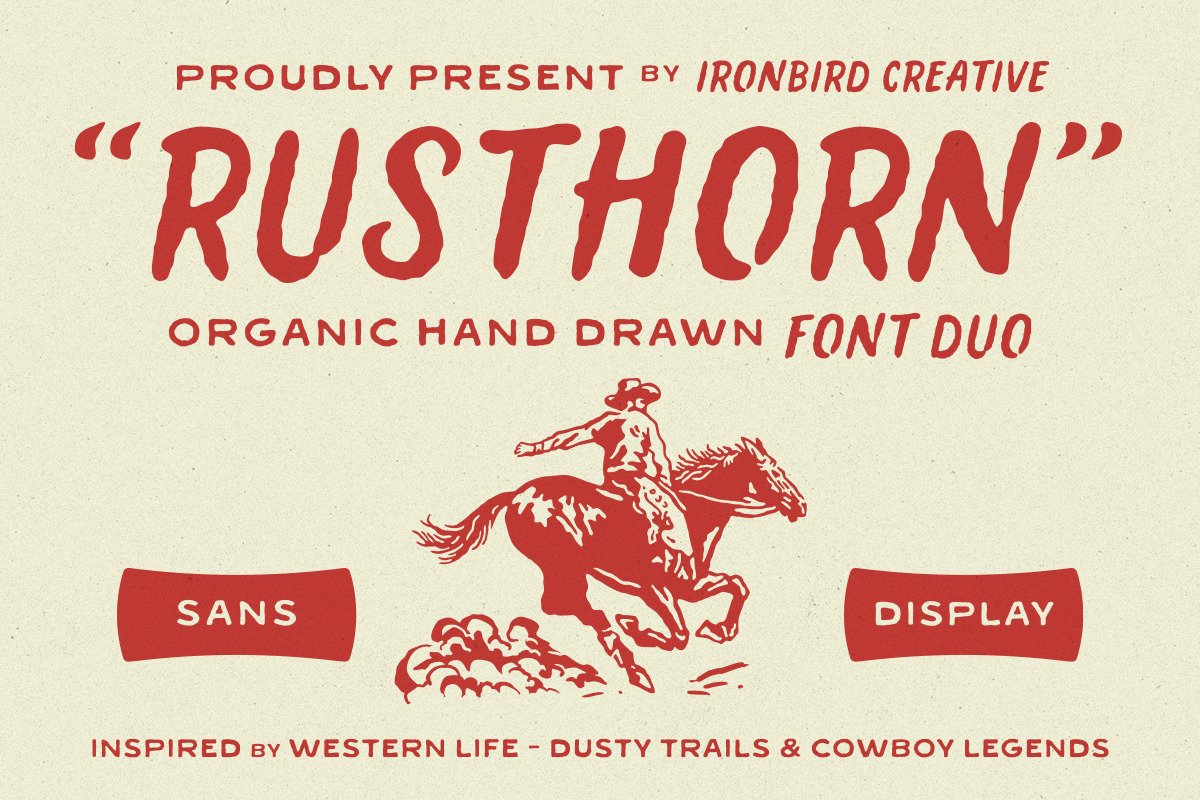
Rusthorn - Font Duo
Rusthorn is a bold and organic hand-drawn font duo inspired by western life, vintage signage, and cowboy legends. Featuring Display and Sans styles, it’s perfect for logos, posters, packaging, apparel, and branding with a rustic, handcrafted touch.